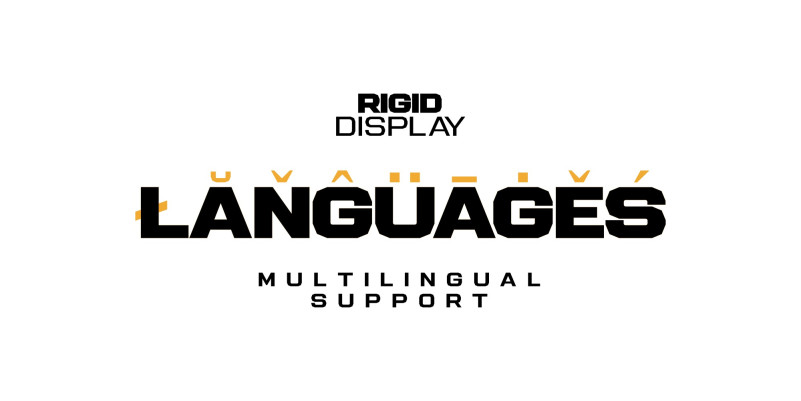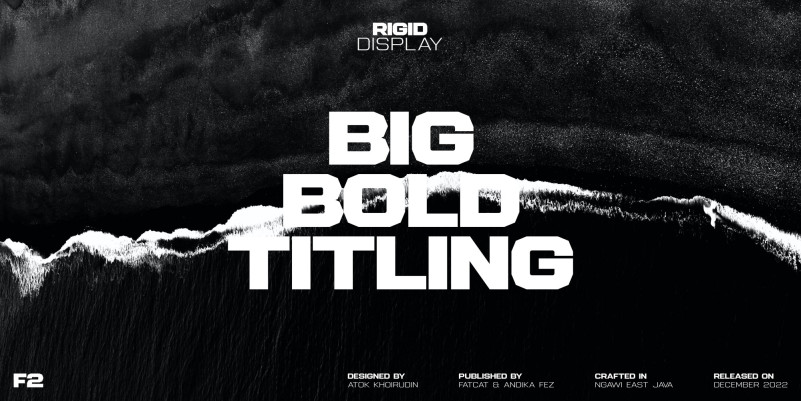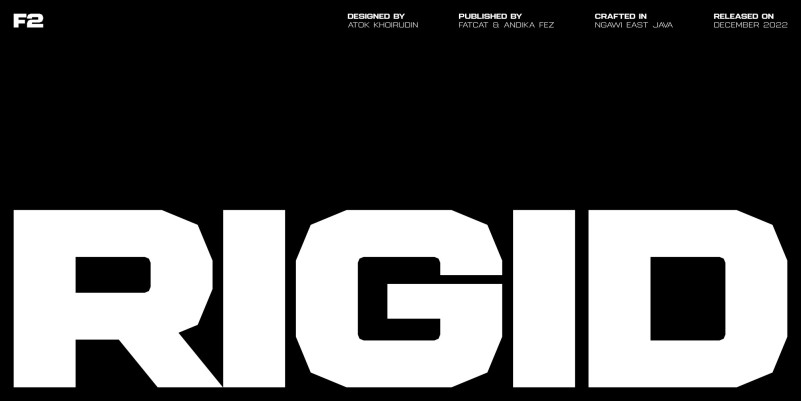
Rigid Display Font
How outstanding! Rigid Display Font is a sans serif font designed for display needs such as titles, logos, etc. with a different touch. Rigid Display provides 5 weights for its users to have freedom in handling. This fresh font is an alternative that will refresh your font library and also the viewers so feel free to choose it as the main pawn for your project.